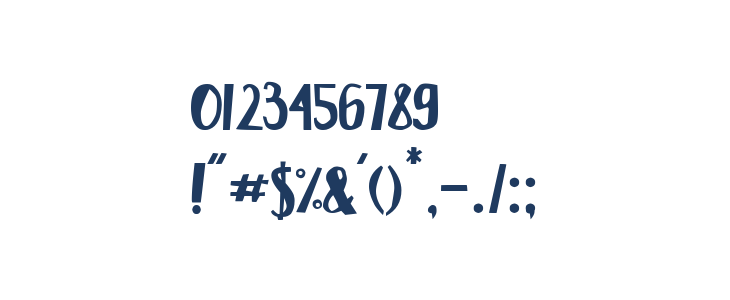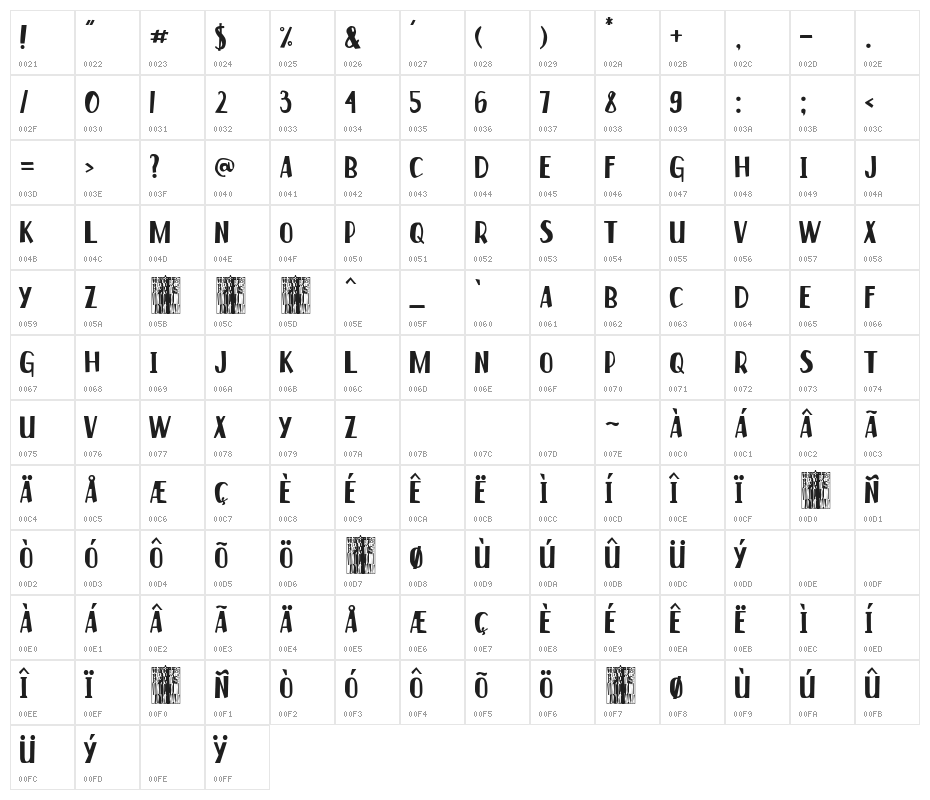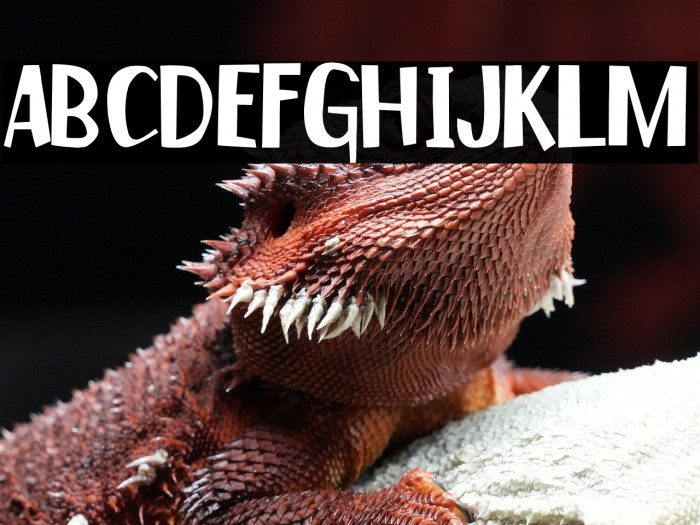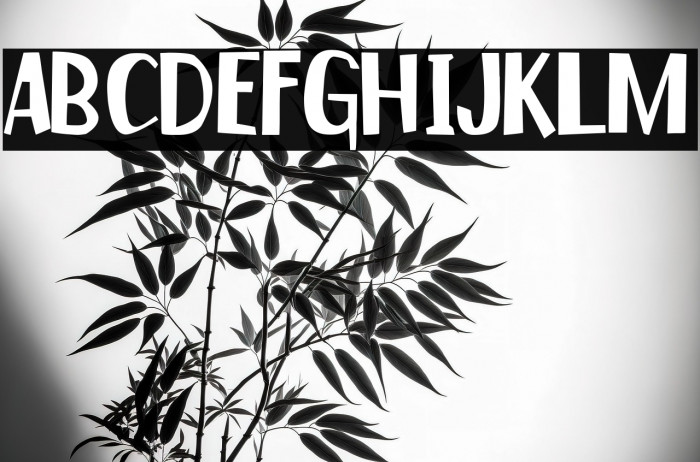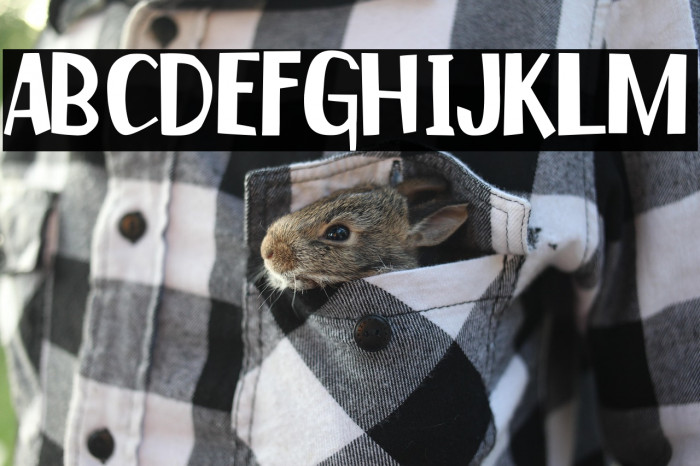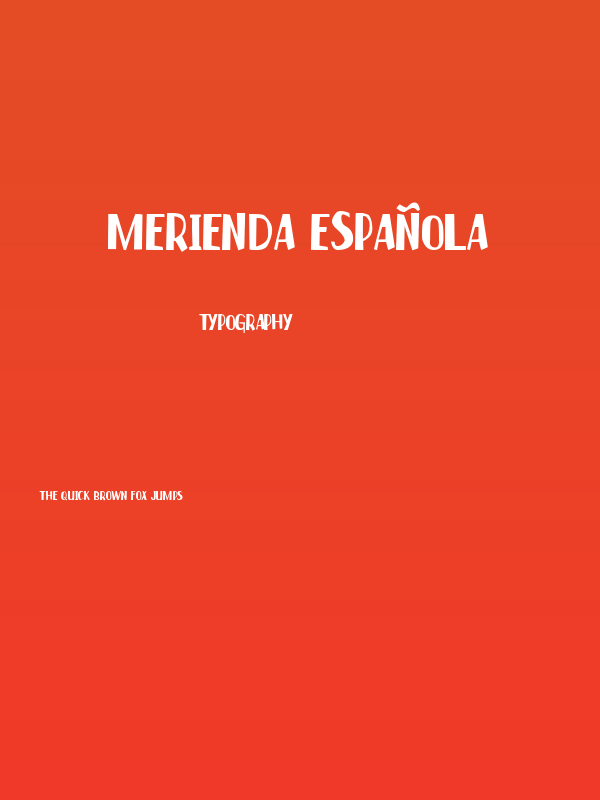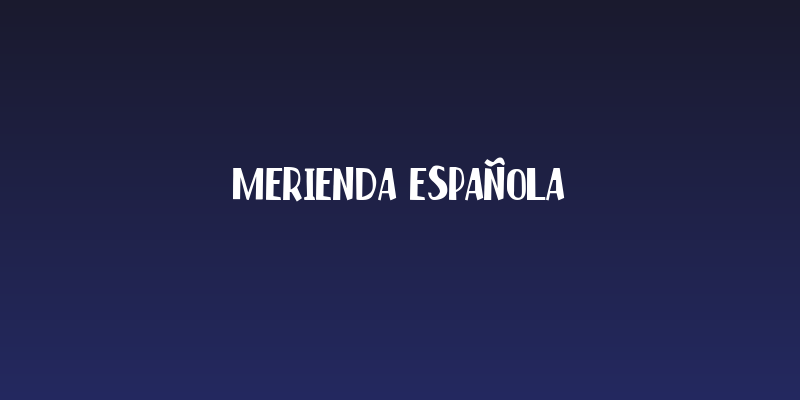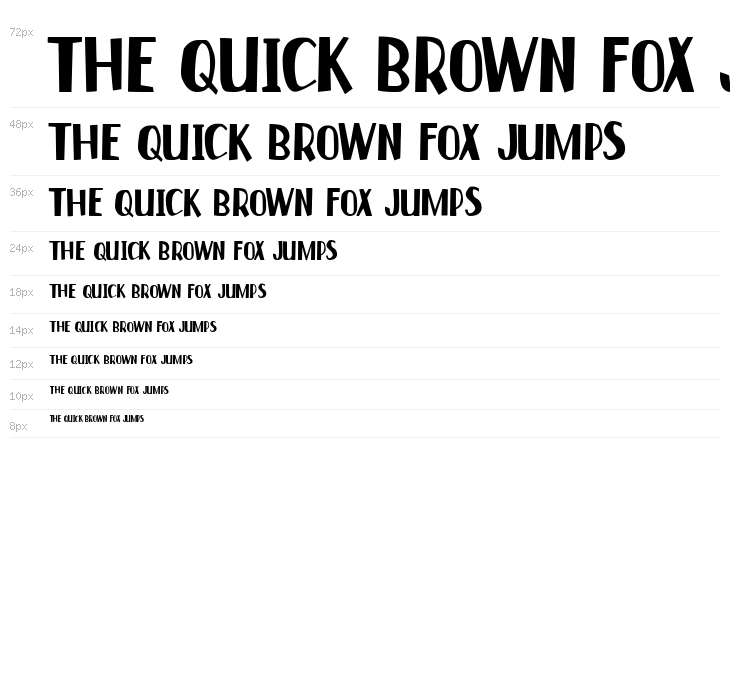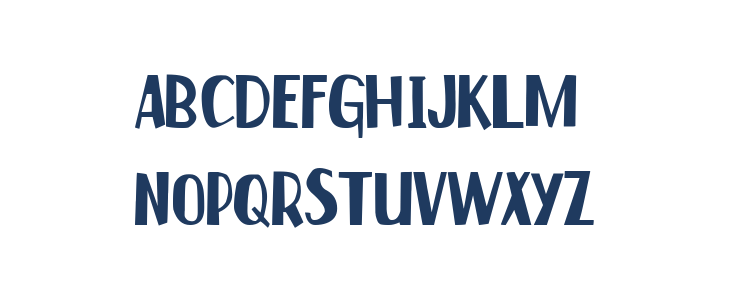
Merienda Española Font
This font features a playful and dynamic style with a handwritten feel. The characters are bold and slightly condensed, giving them a strong presence on the page. The strokes are thick with a medium contrast, creating a lively and energetic appearance. The uppercase and lowercase letters maintain a consistent style, with rounded edges and a slight slant that adds to the casual, friendly vibe. The numbers and special characters follow the same design principles, ensuring a cohesive look across all elements. This font is ideal for projects that require a touch of personality and flair.
Overall StylePlayful
Proposed ProjectsPerfect for greeting cards, children's books, playful branding, and creative posters.